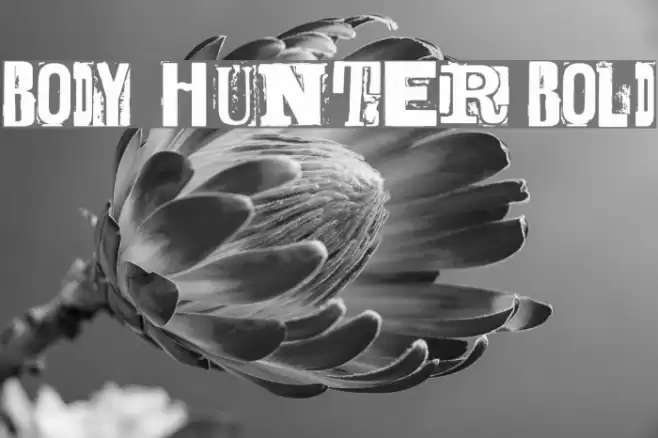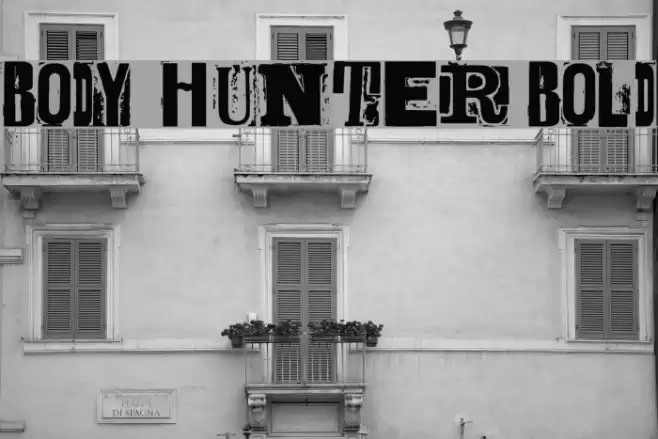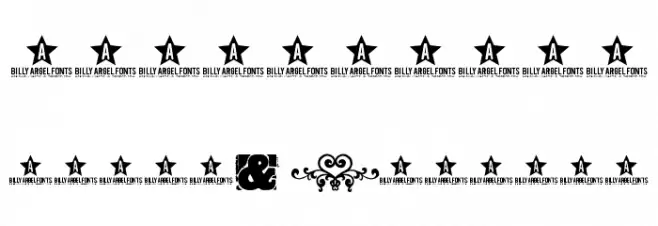
BODY HUNTER Bold Font
BODY HUNTER Bold Description
This font features a bold and distressed style, characterized by its rough, textured appearance that gives it a grunge or urban feel. The uppercase letters are prominent and impactful, with irregular edges and a worn-out look that adds a sense of ruggedness. The font's unique design elements make it stand out, with each letter having a distinct personality while maintaining a cohesive overall style. The special characters, such as the ampersand and stars, complement the font's edgy aesthetic, making it suitable for projects that require a bold and unconventional look.
A bold, distressed font with a grunge aesthetic and rugged texture from Uncategorized fonts.
- Proposed Projects: Ideal for music album covers, posters, streetwear branding, and edgy graphic design projects.
- Overall Style: Grunge, Urban